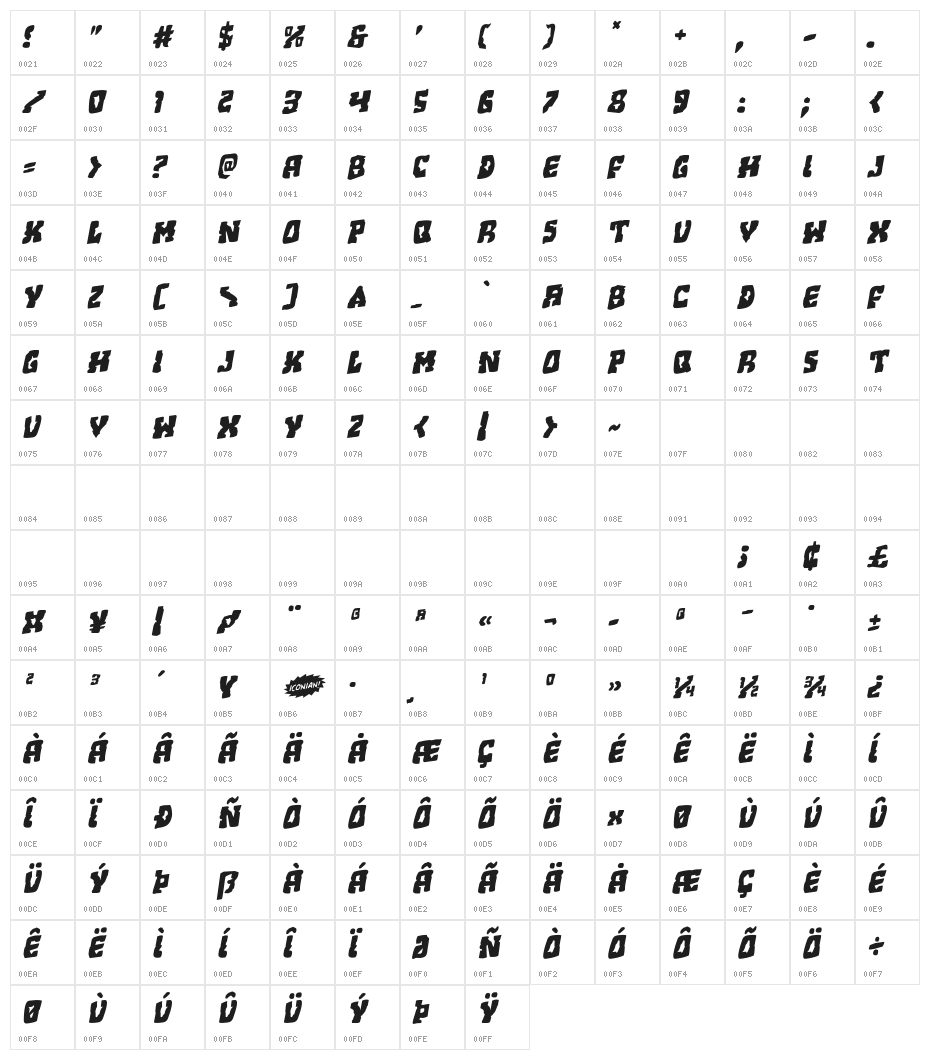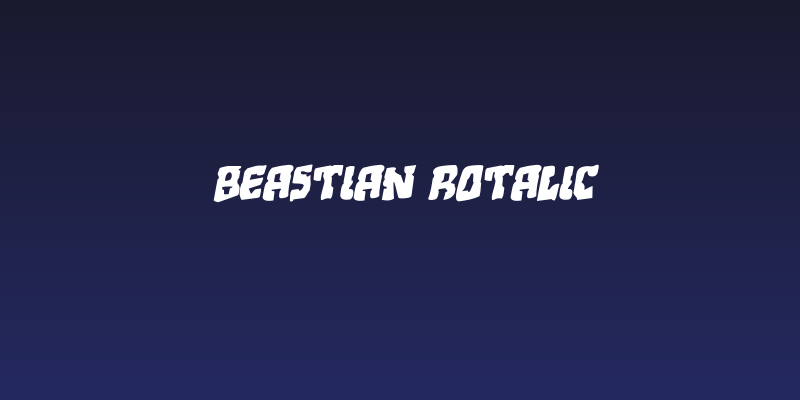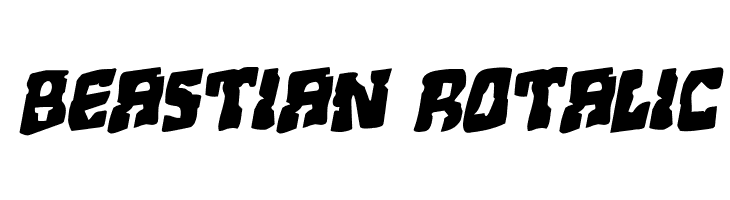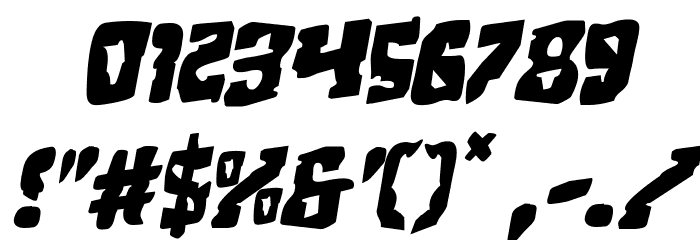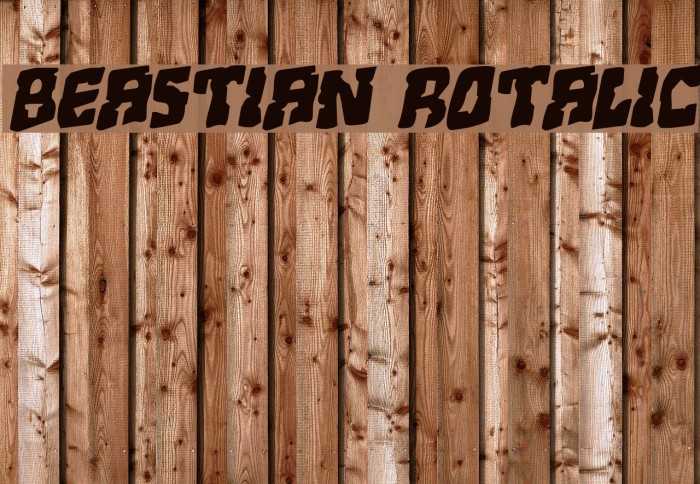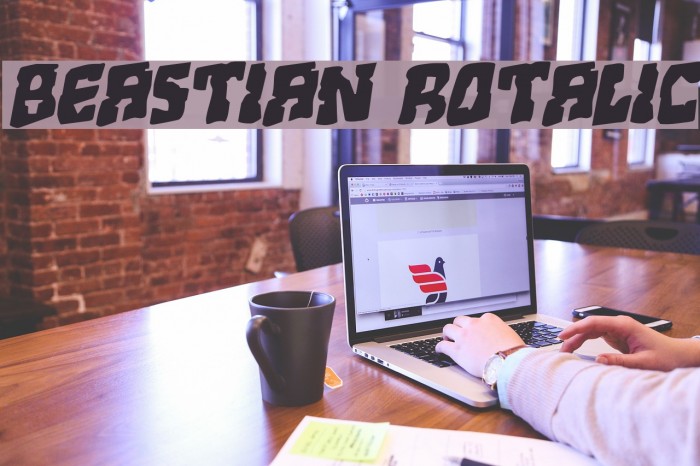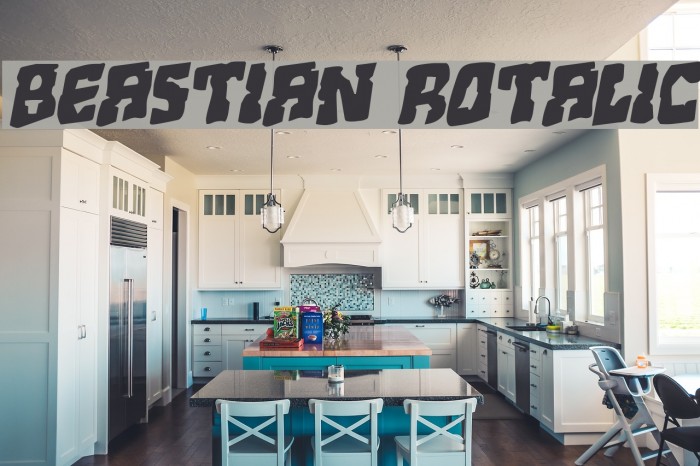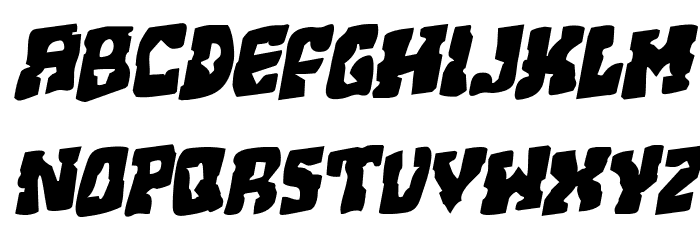
Beastian Rotalic Font
Beastian Rotalic Description
This font features a bold and dynamic style with a strong presence. The characters are heavily stylized with thick strokes and sharp edges, giving it a powerful and aggressive appearance. The uppercase and lowercase letters maintain a consistent design, while the numbers and special characters complement the overall aesthetic. The font's boldness and unique character shapes make it suitable for attention-grabbing designs.
| Proposed Projects | Ideal for sports branding, poster headlines, and dynamic logo designs. |